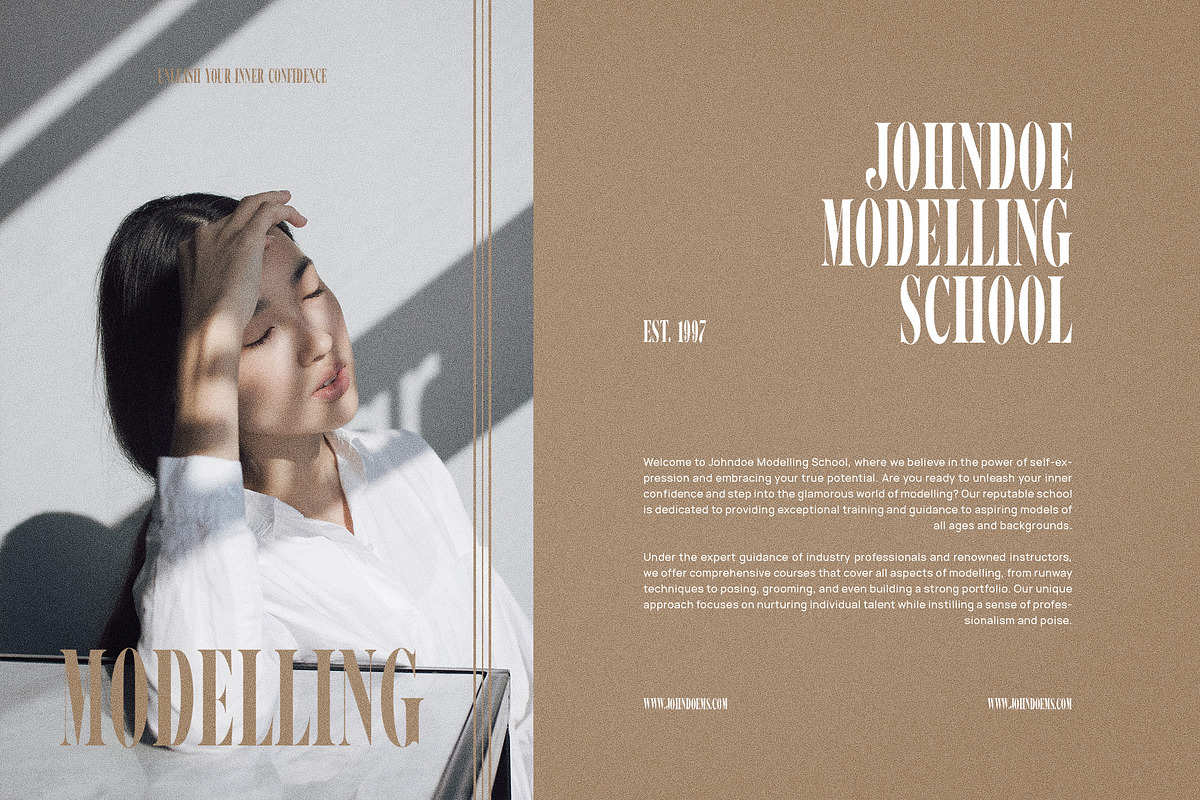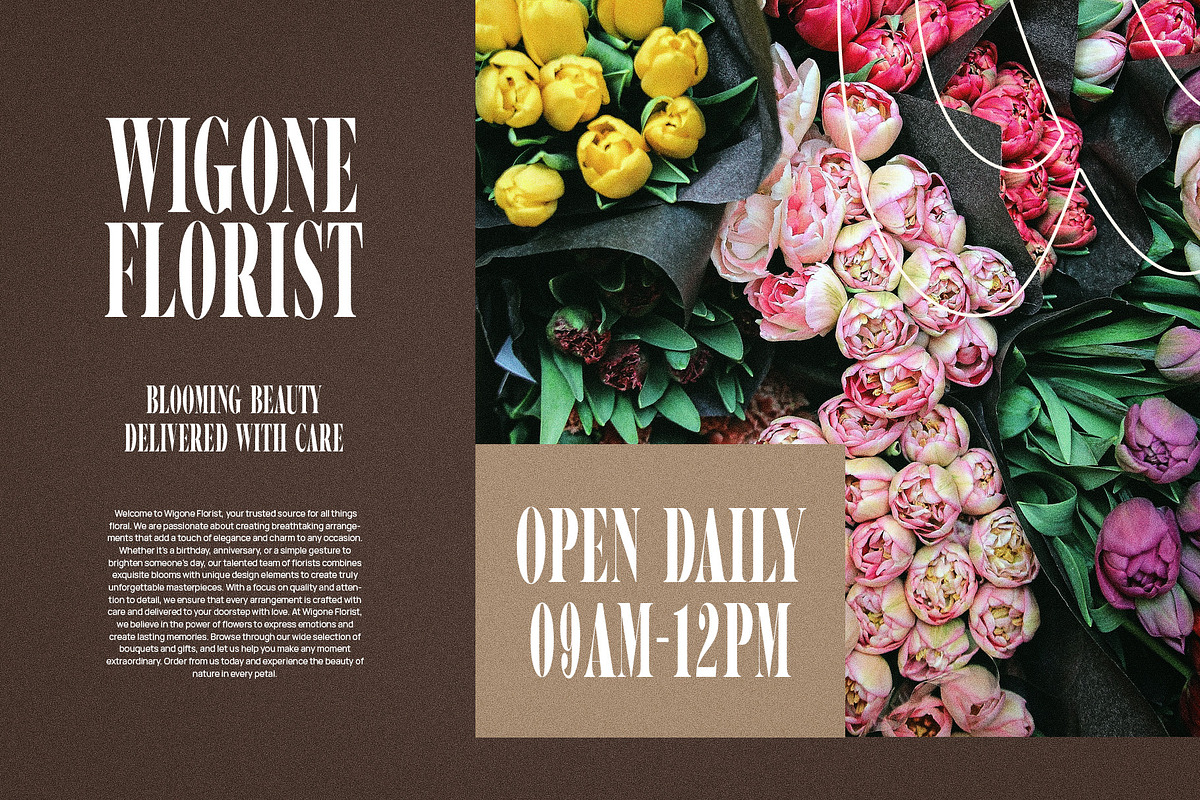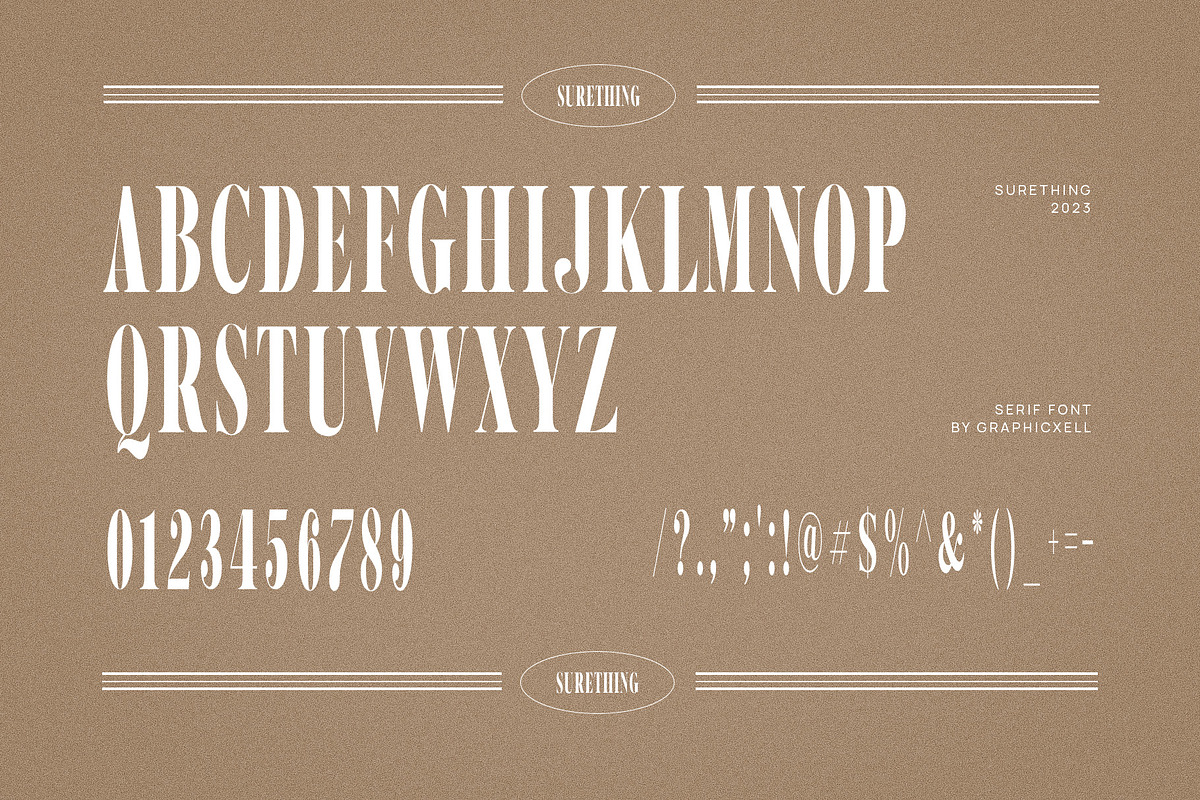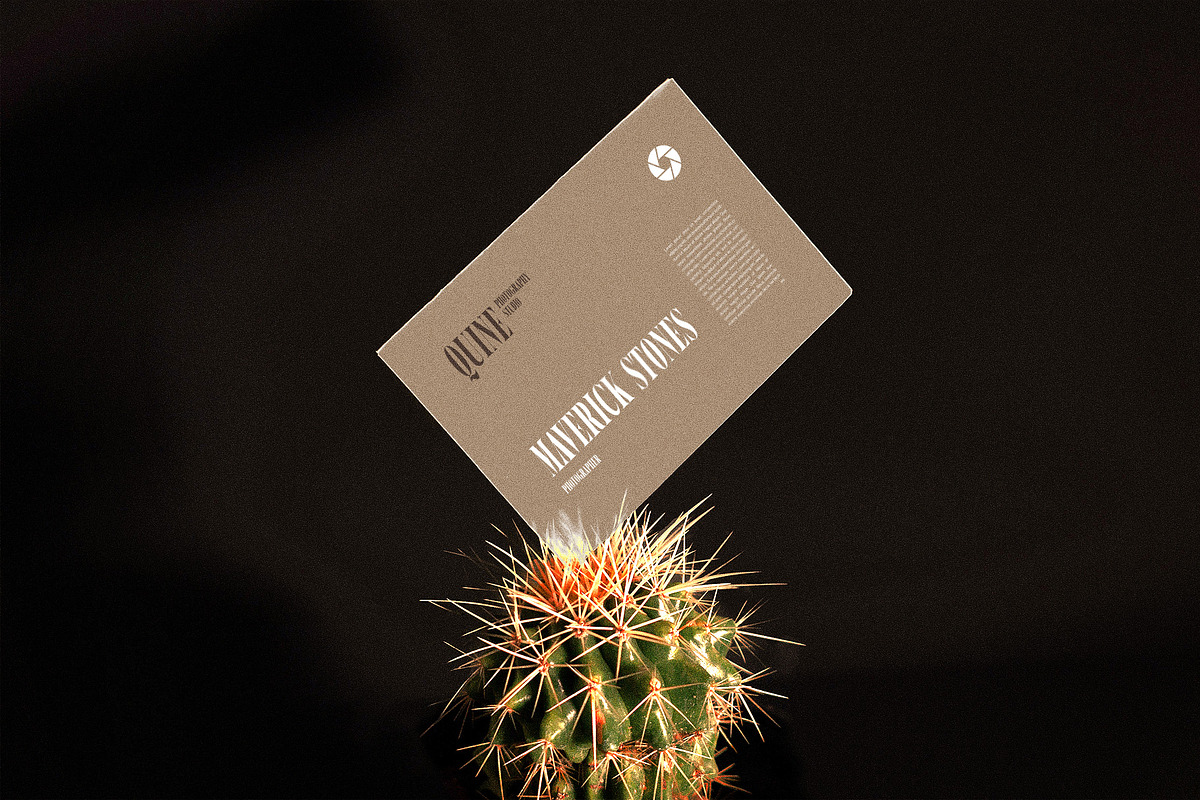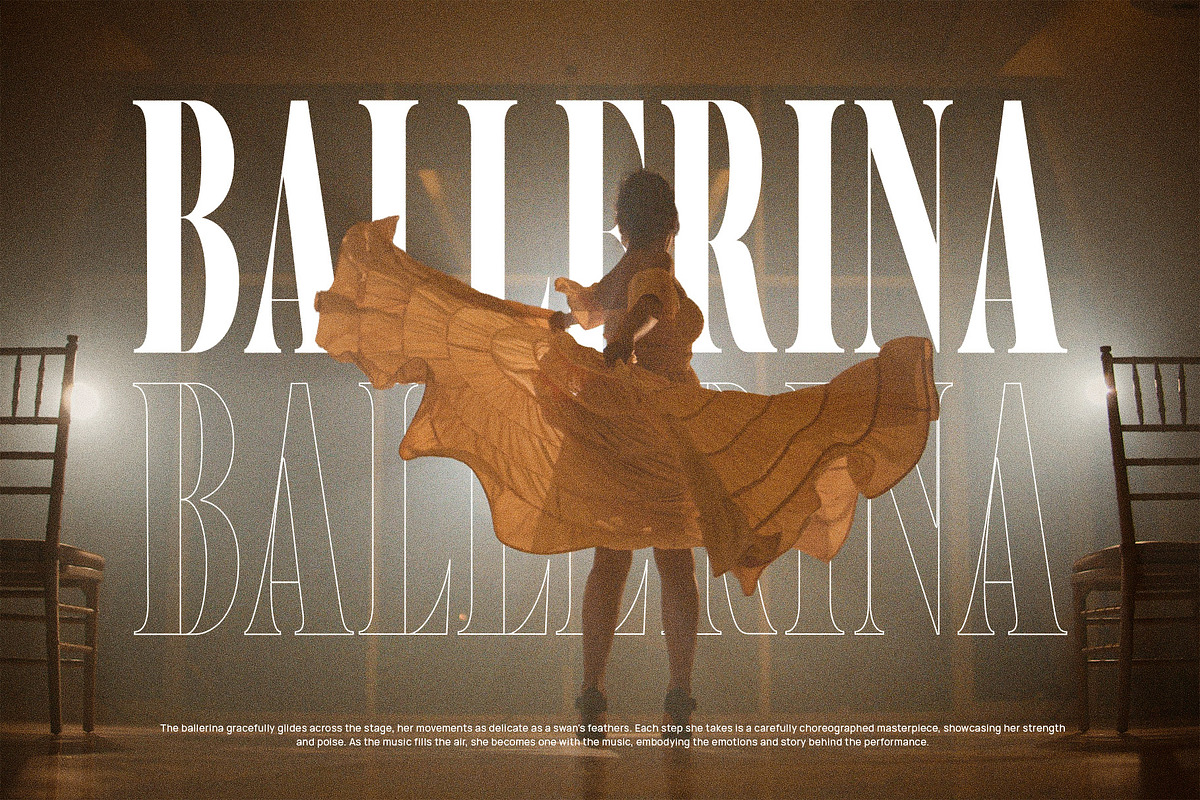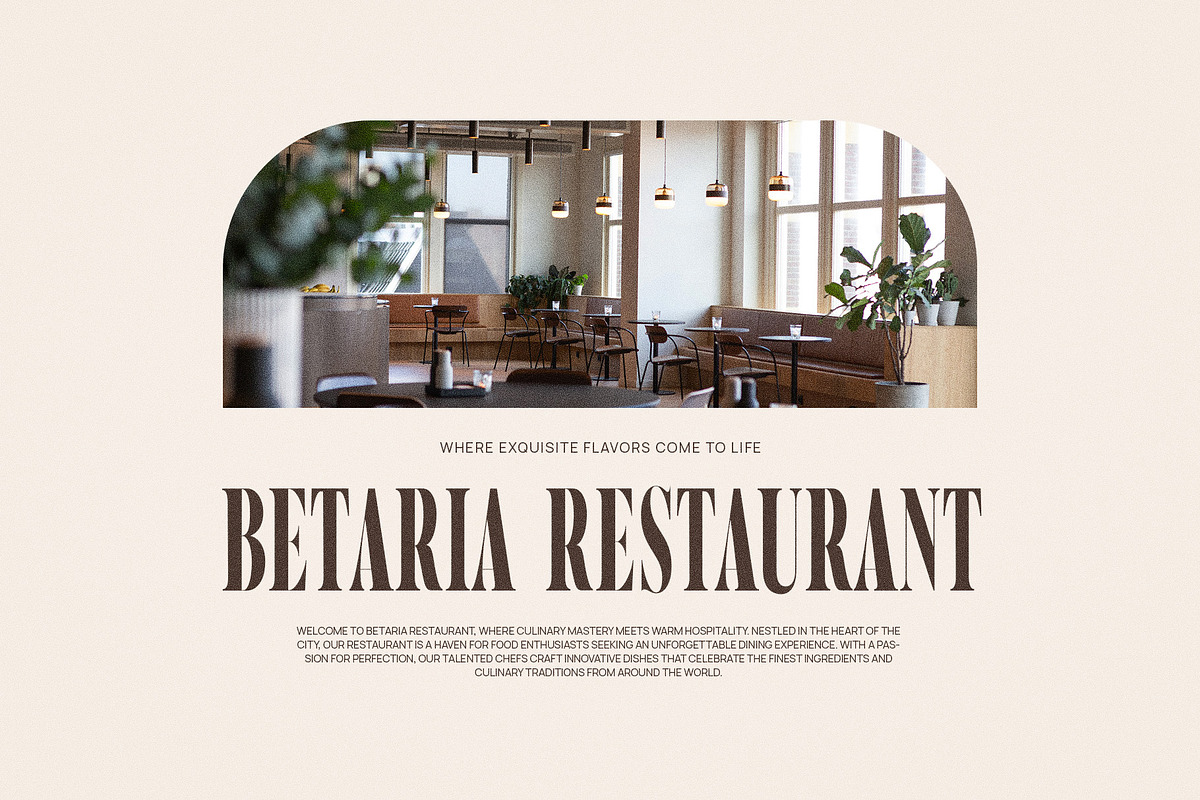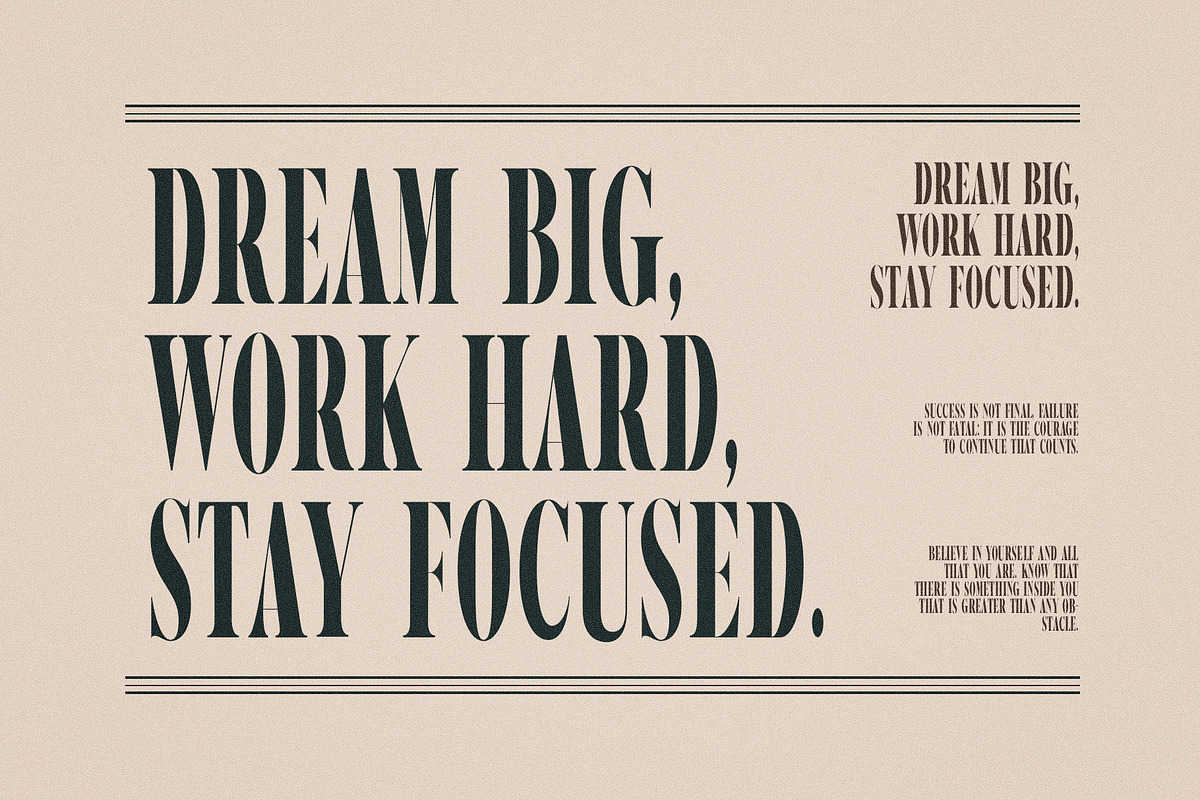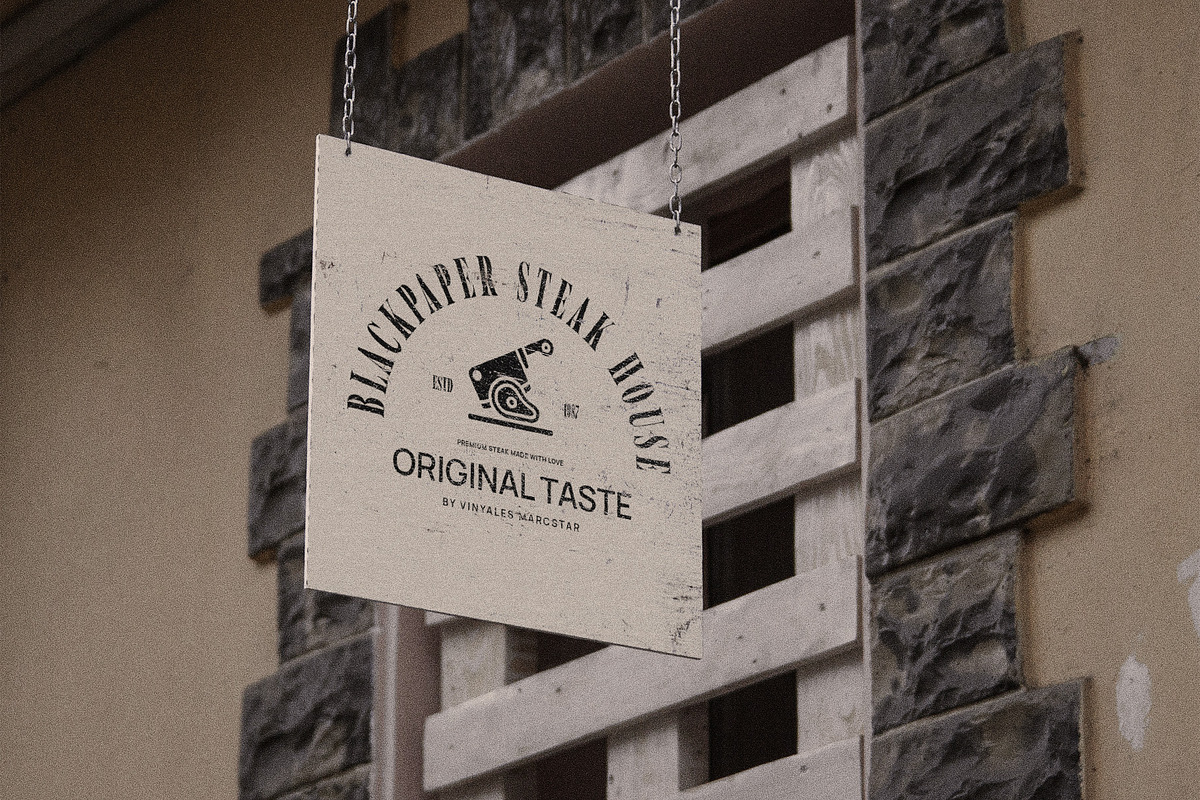
SureThing Elegant Serif Font
SureThing Elegant Serif Font is a modern font that comes with a basic letterform. However, it doesn’t reduce its classy look because it is designed with a high level of sophistication. This exceptional serif font also features an exquisite serif with a professional appeal. Even though it emphasizes on the big shape, it still looks quite minimalist because the letters are slightly raised and not wide. Besides that, it comes with a balanced and precise appearance, adding to its strong impression. Anyway, SureThing Elegant Serif Font is perfect for projects that need high accessibility. With a high level of readability, you can use it for watermarks, photography, product packaging, branding projects, etc. The contrast of the line thickness is very clear but that’s what actually makes it fascinating. Whether you want a formal, elegant, or traditional impression, this serif font could be your best choice. It is also very valuable due to its unlimited use of styles.